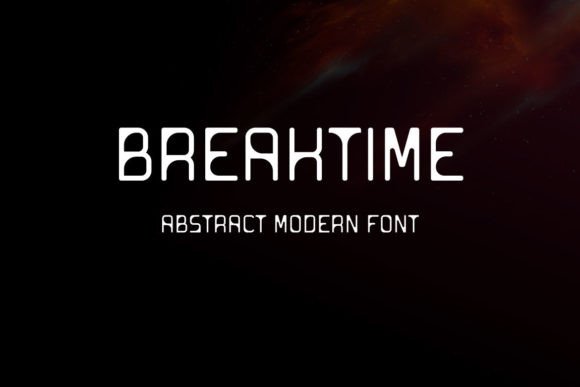
Immerse yourself in the world of Breaktime Font, a display font family that exudes individuality and charm. Its bold and distinctive characters dance across the page, captivating your audience with their playful nature. Created by the talented Mightyfire, Breaktime is not just a font; it's an artistic expression that elevates your designs to new heights.
With its strong personality, Breaktime leaves an unforgettable impression, making it the perfect choice for display projects. Its versatility knows no bounds, from branding and logos to candy and food packages. Breaktime effortlessly transforms ordinary designs into eye-catching masterpieces that demand attention.
Step into a world where imagination thrives, where Breaktime's playful curves and sharp edges harmonize to create a visual symphony. Unleash your creativity and let Breaktime be your guide as you embark on a design journey unlike any other. Its unique style adds a touch of sophistication and charm to any project, leaving your audience captivated and eager for more.
Breaktime is more than just a font; it's an experience. Its ability to transform words into art opens up a realm of possibilities, empowering you to create designs that resonate with your audience on a deeper level. Let Breaktime be the catalyst for your next design masterpiece, and watch as your creations come to life with unparalleled beauty and impact.